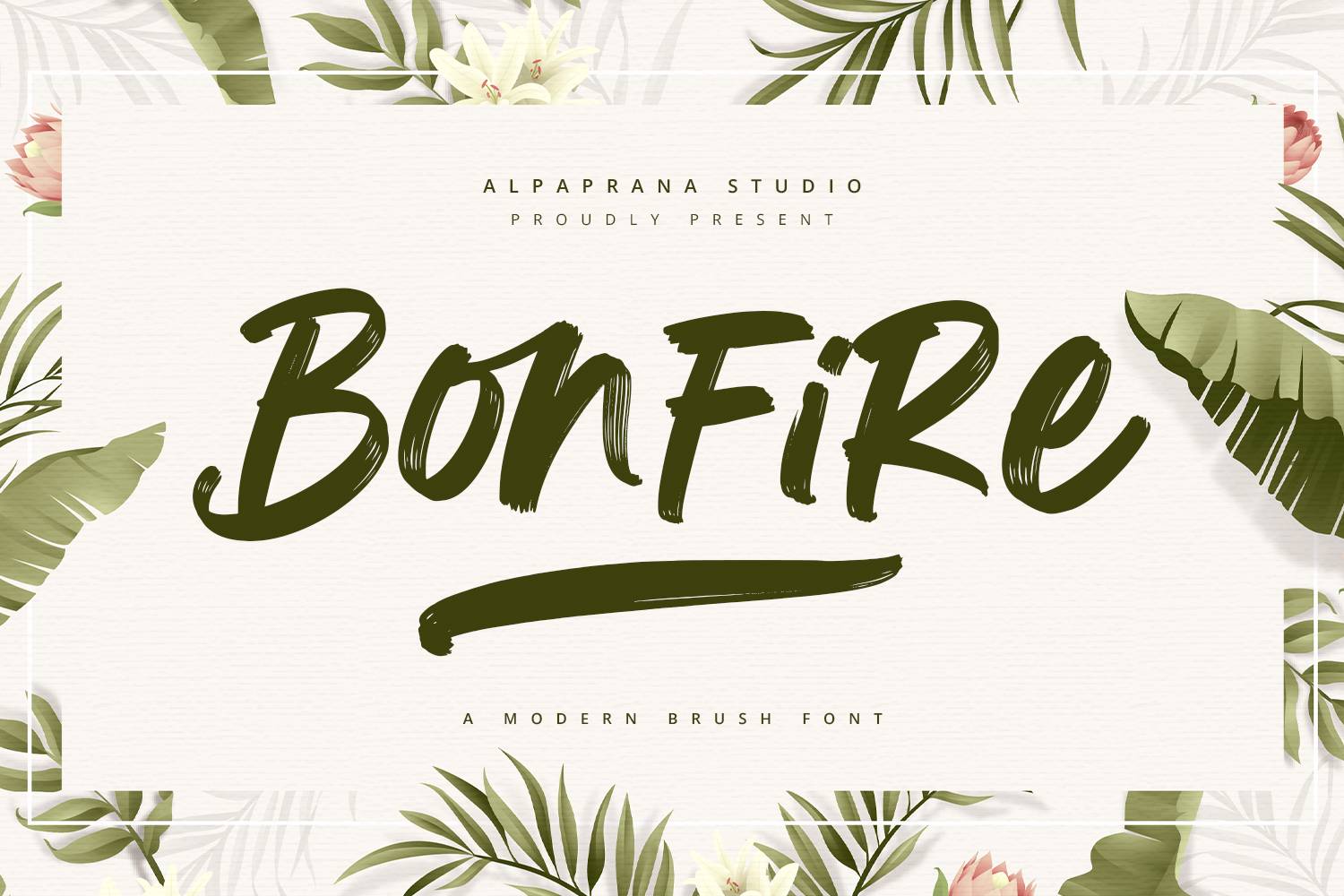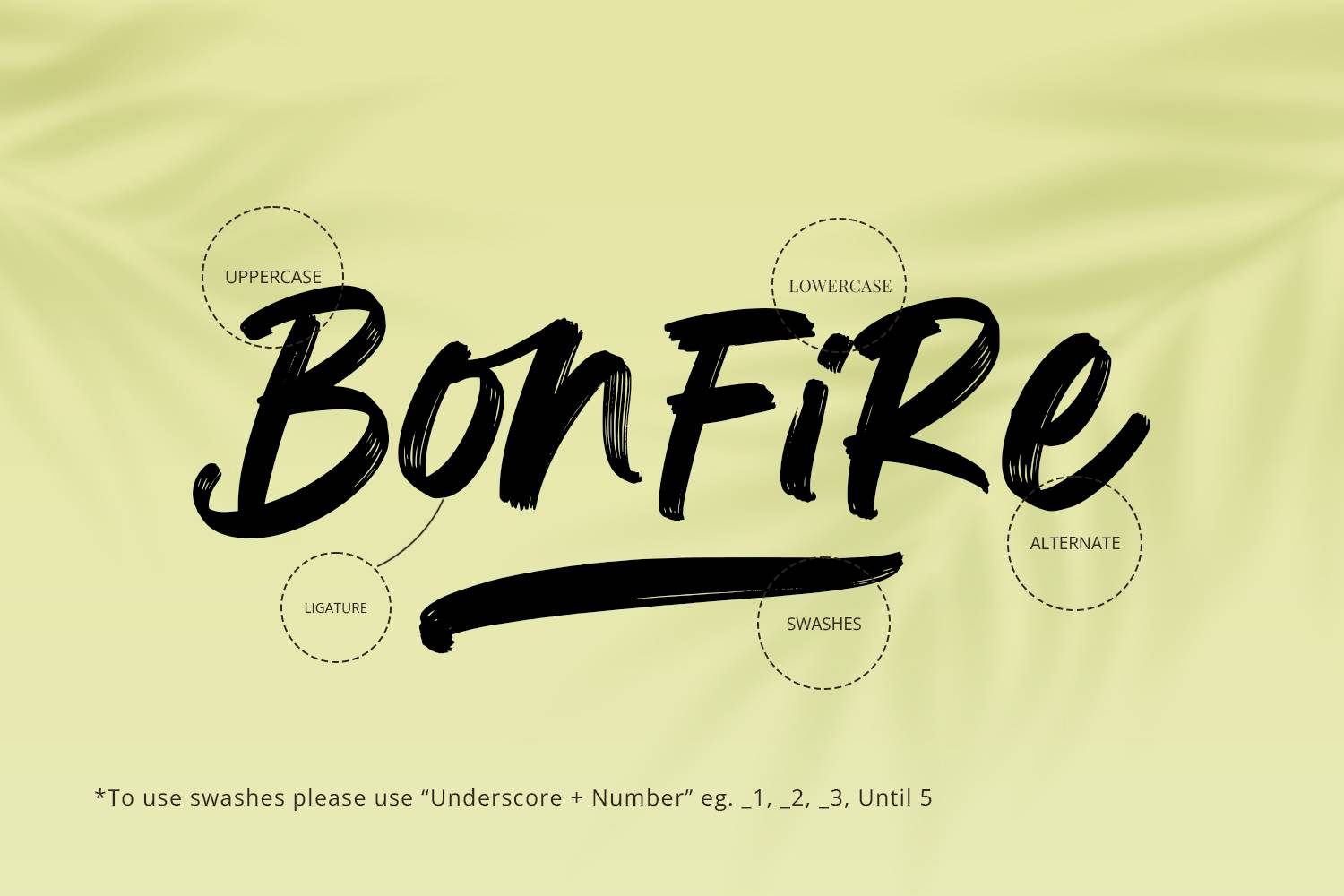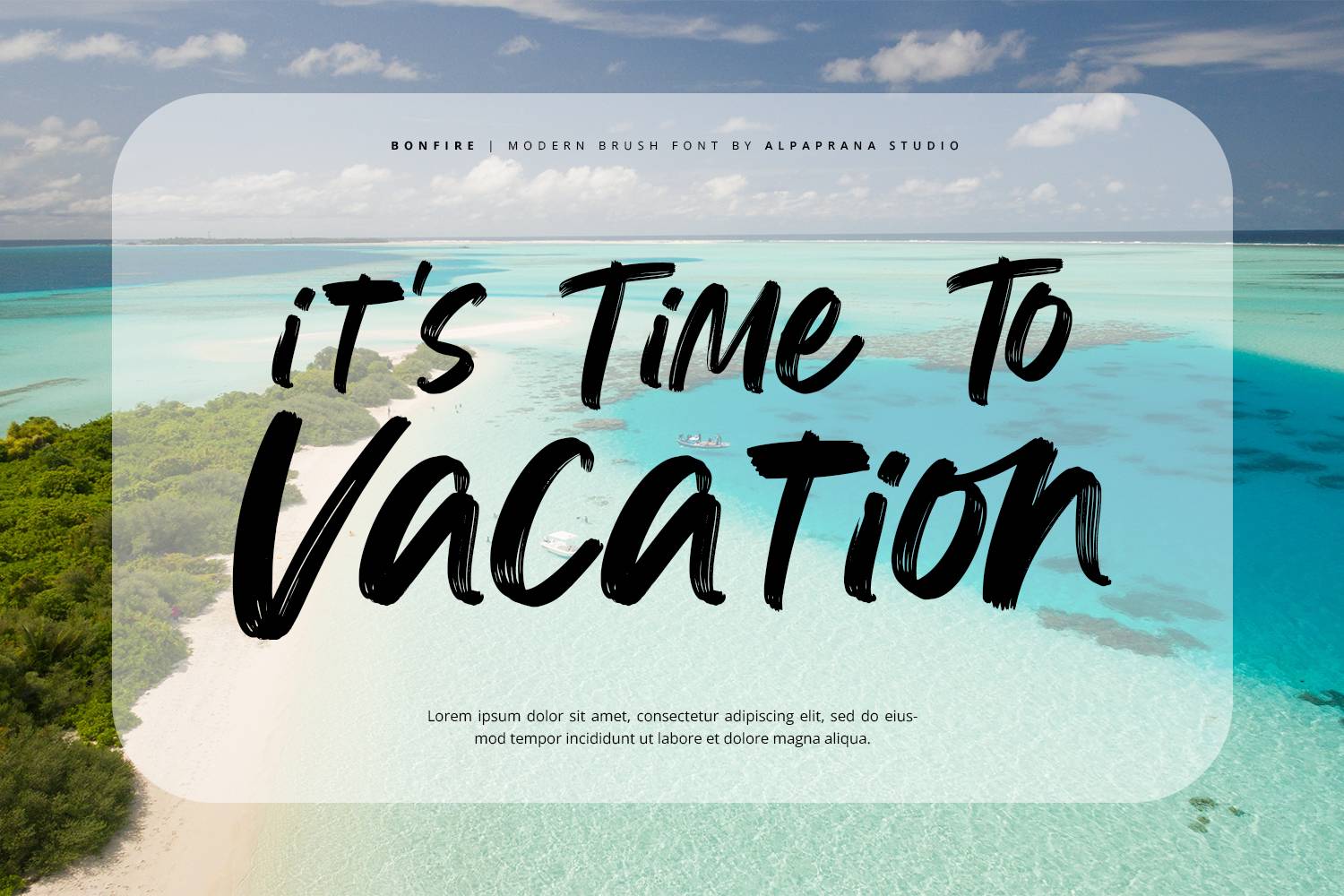
Bonfire is a lively and energetic script font that features bold, brush-like strokes with a spontaneous, hand-painted feel. Its uppercase letters are expressive and slightly slanted, giving the font a dynamic and informal personality that works perfectly for creative projects, branding, posters, and casual headlines. The font’s natural, textured style adds a sense of warmth and authenticity, making it a great choice for designs that aim to stand out with a personal and artistic touch.
Bonfire Font
About Bonfire Font